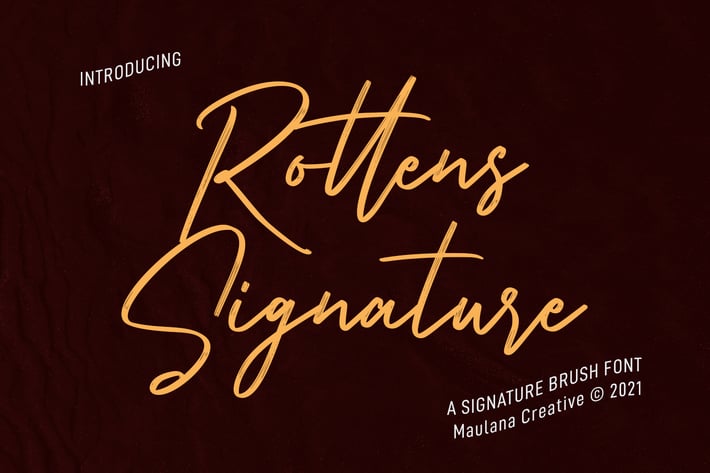
Rottens Signature Brush Font
Rottens Signature is a casual script brush font. With brush texture stroke, slant and fun character with a bit of ligatures. To give you an extra creative work. Rottens Signature font support multilingual more than 100+ language. This font is good for logo design, Social media, Movie Titles, Books Titles, a short text even a long text letter and good for your secondary text font with sans or serif. Make a stunning work with Rottens Signature font.